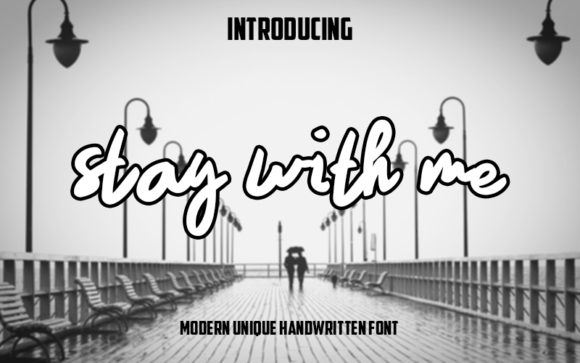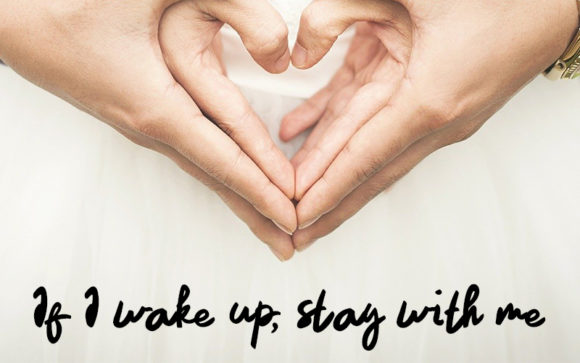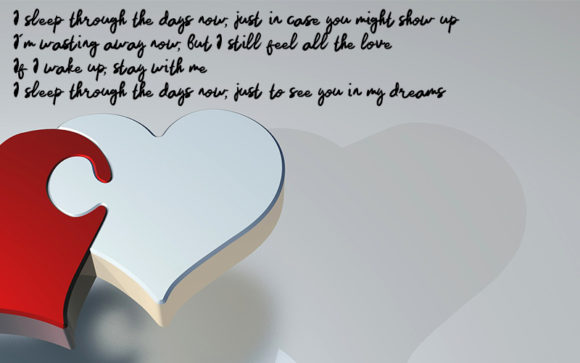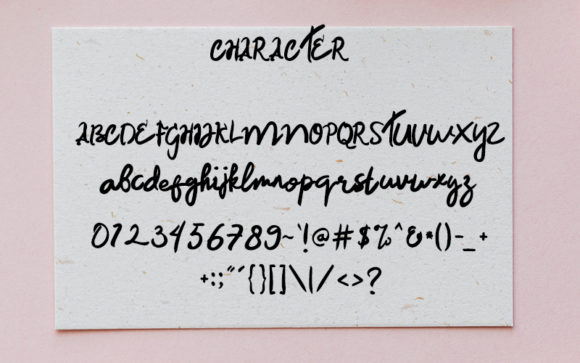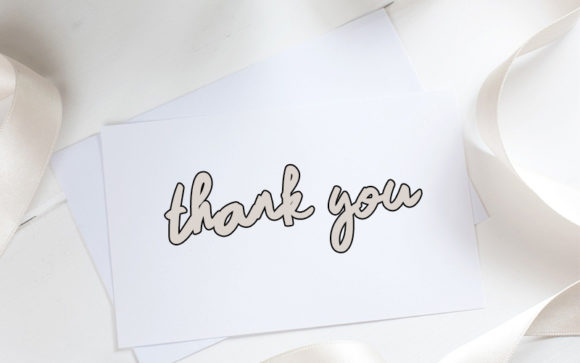
Stay with Me Font
About Stay with Me Font
Stay With Me feels equally charming and modern. Its casual charm makes it appear wonderfully down-to-earth, readable and, ultimately, incredibly versatile. Get creative with its unique playfulness, and use it to brighten up all your upcoming crafting projects!